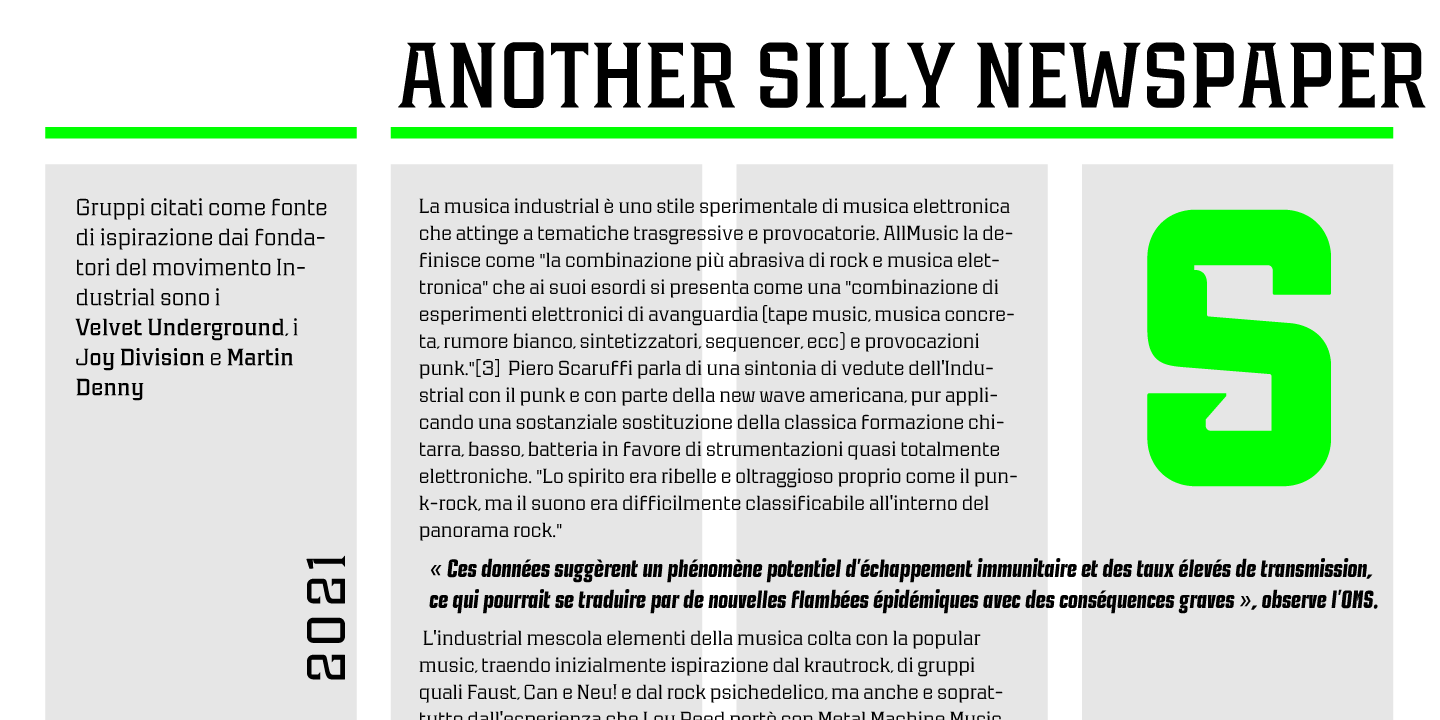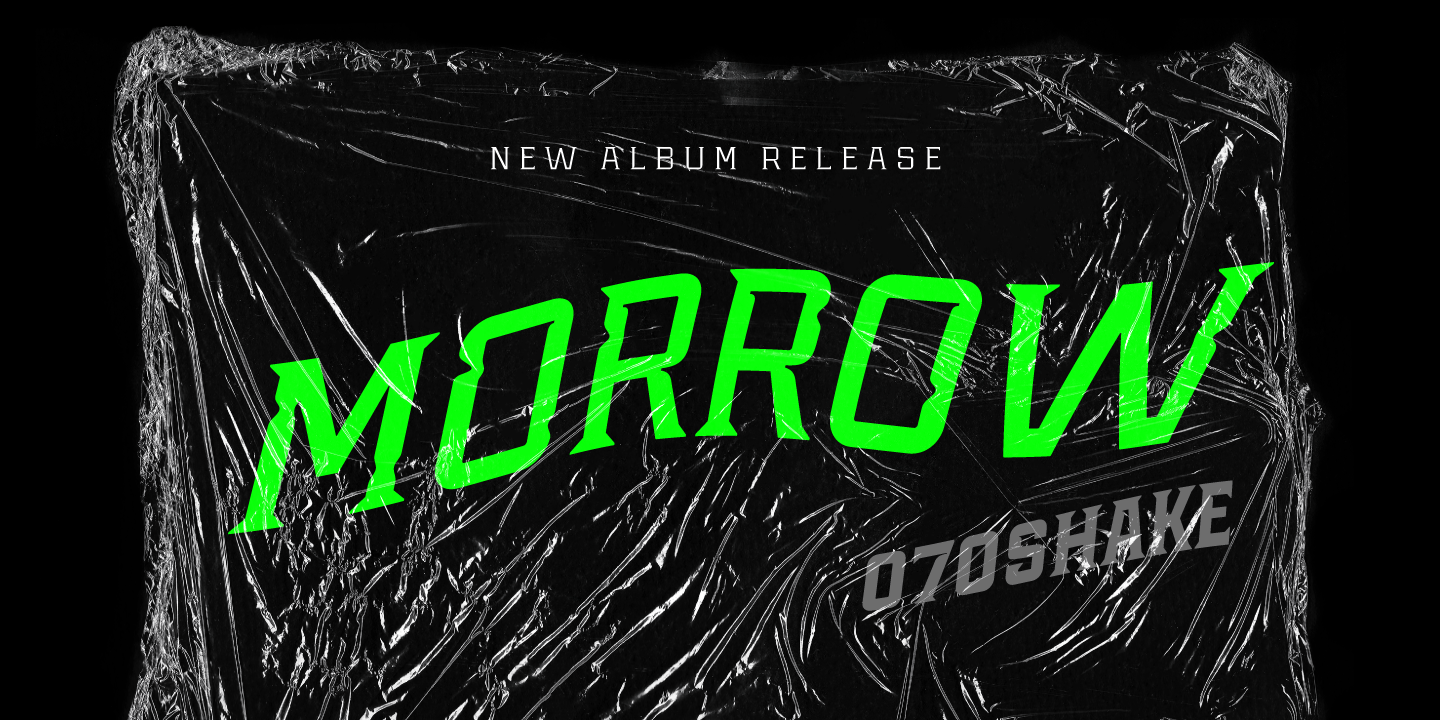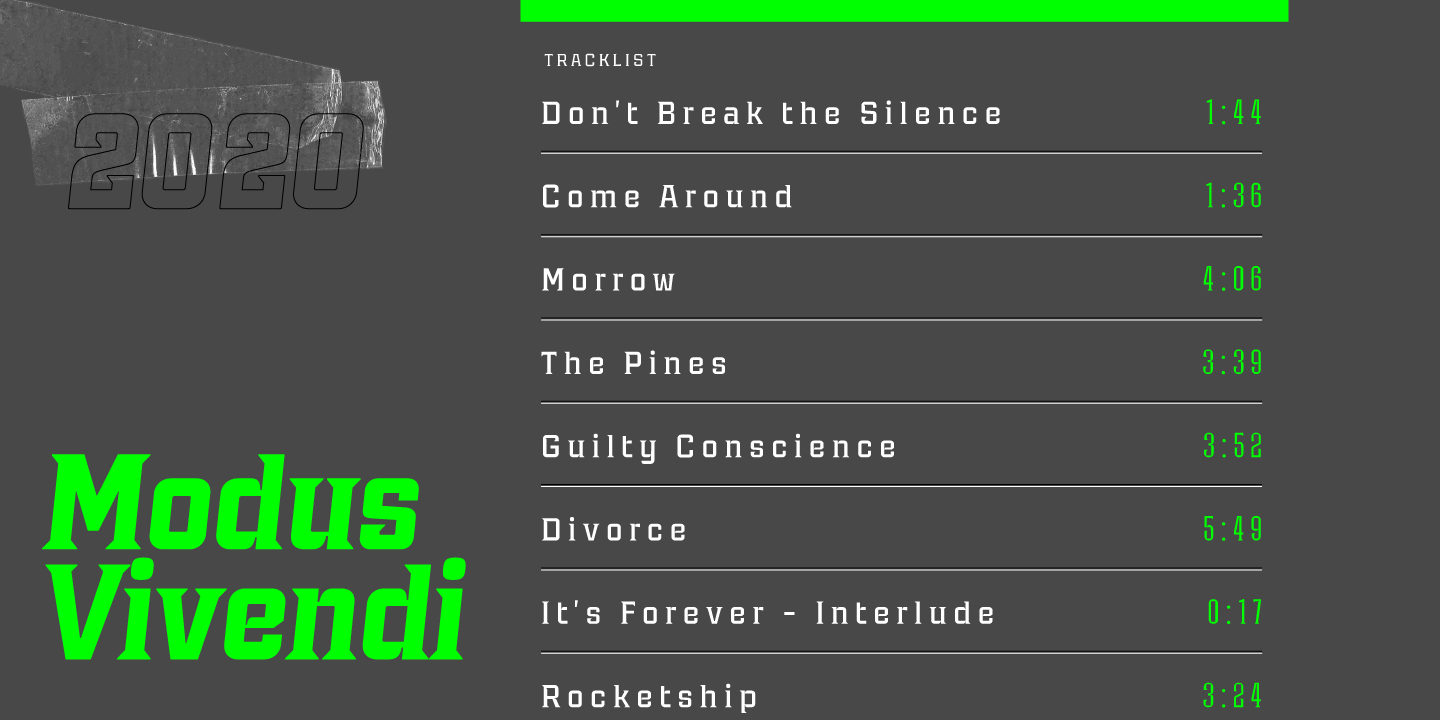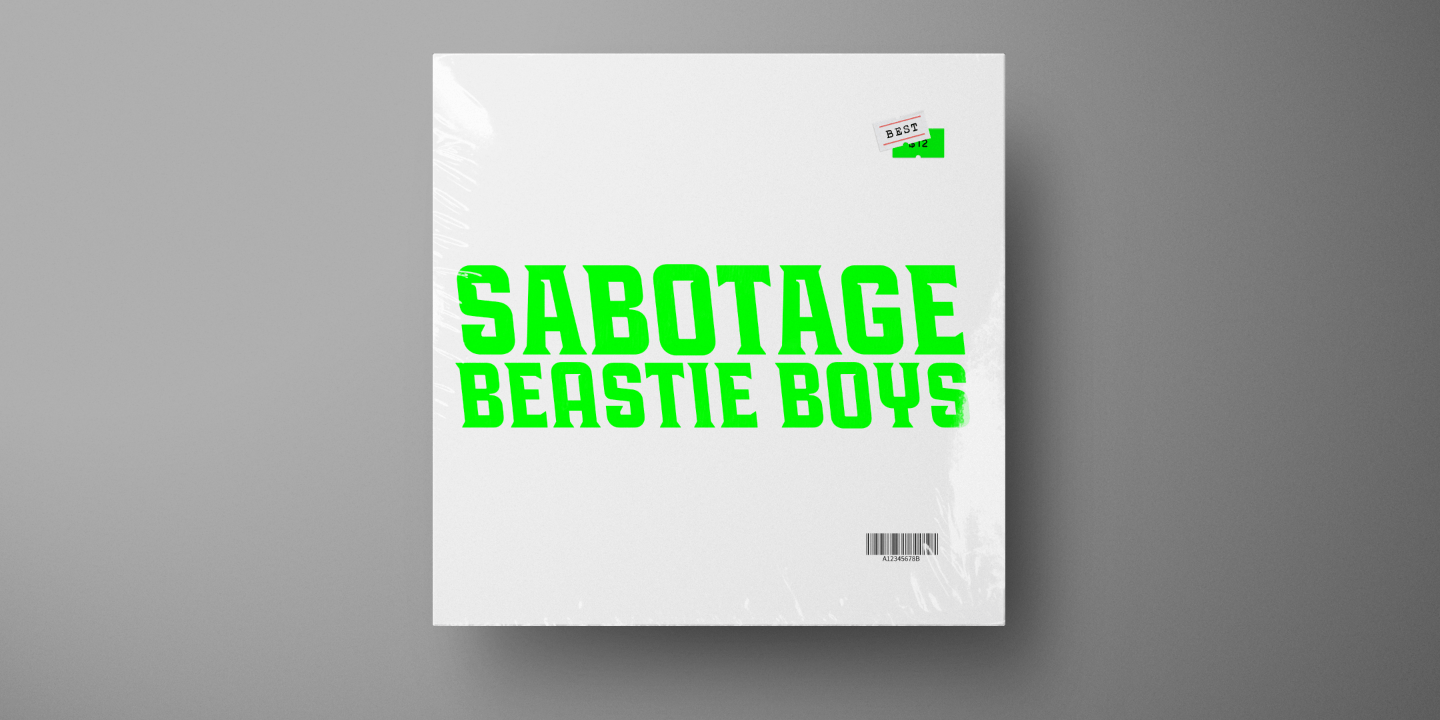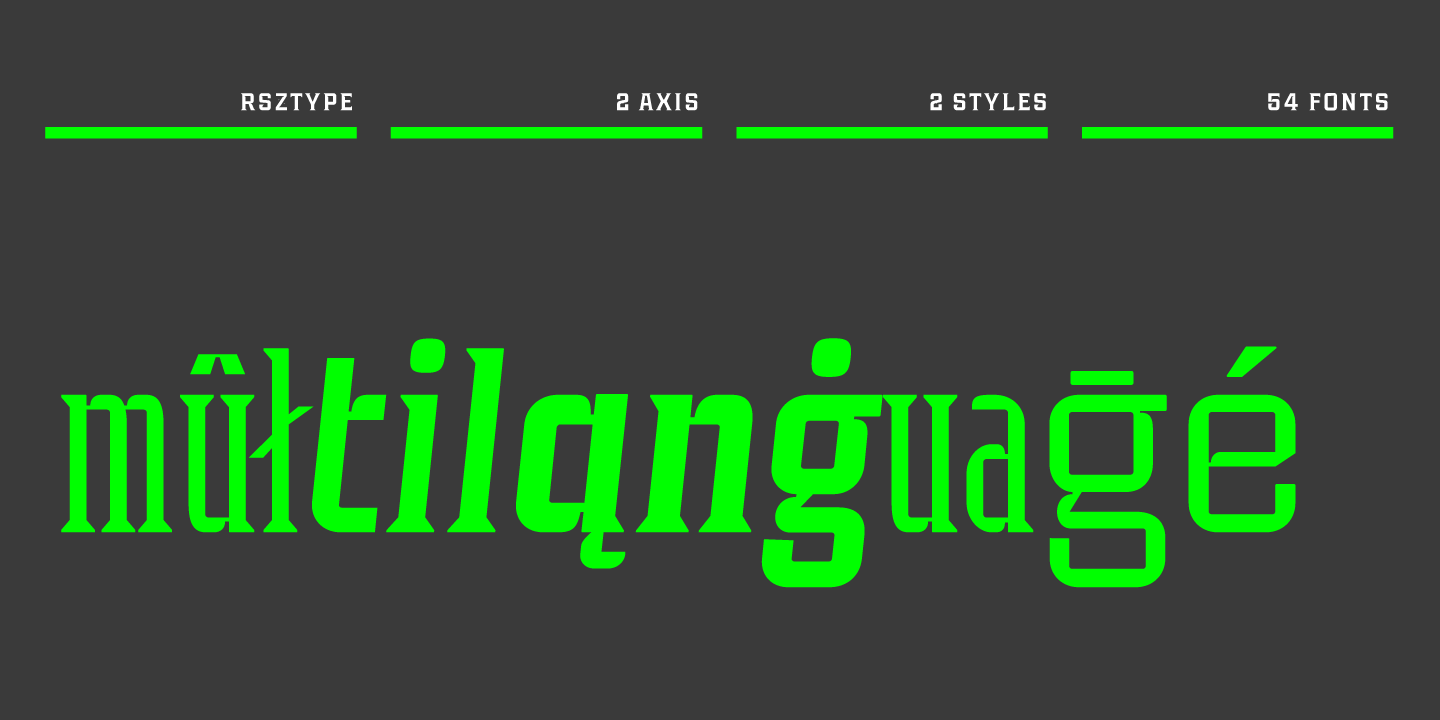
About Industria Serif
Industria Serif is a modern serif with a geometric touch. A large family composed by 2 axes, 3 styles in total 54 fonts. This font gives you the freedom to create a full brand identity.